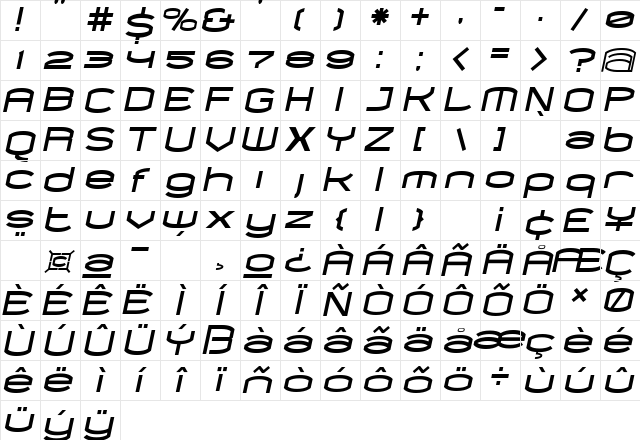
Complete Chord BlackItalic glyph index. Displaying only characters natively supported by Chord BlackItalic font.
Chord is a composed and adaptable typeface that performs quietly and consistently across a wide range of design contexts. The slanted form adds forward momentum and visual energy.